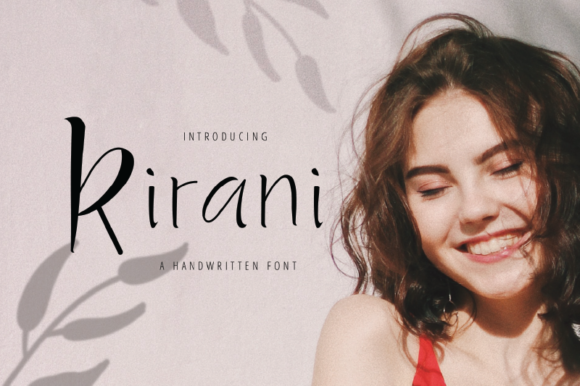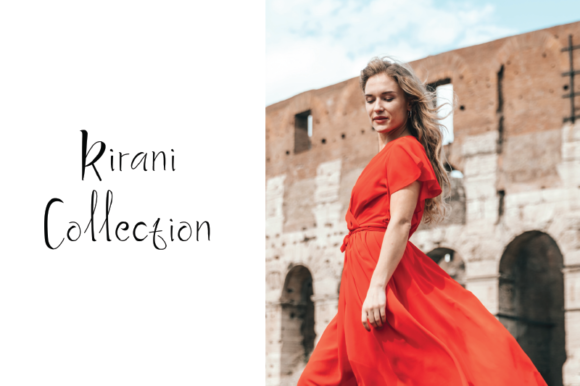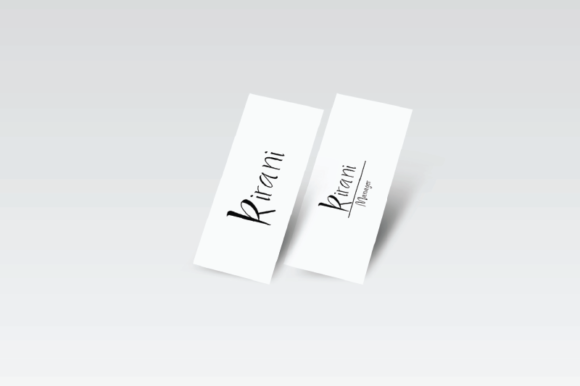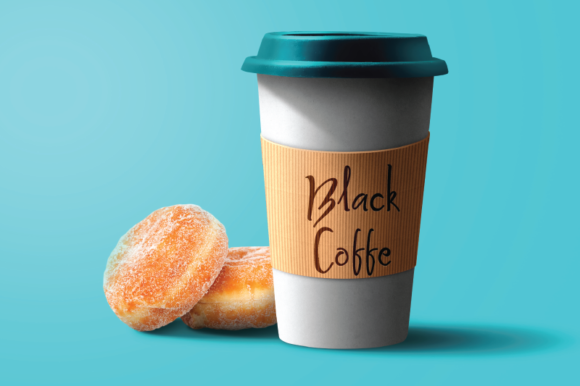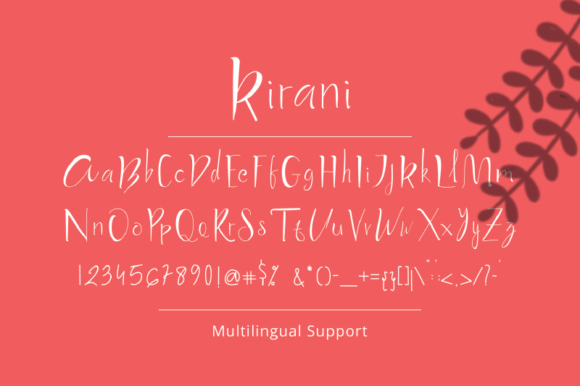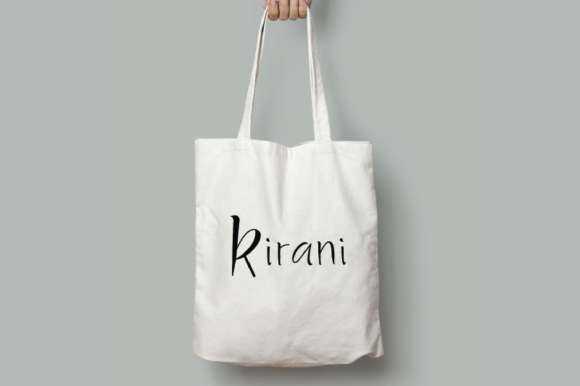
HomeScript FontsKirani Font Script Fonts Kirani Font FacebookXPinterestWhatsApp Kirani Font Poster 2 Kirani Font Poster 3 Kirani Font Poster 4 Kirani Font Poster 5 Kirani Font Poster 6 About Kirani Font Kirani is a cool and fun script with an authentic vibe. DOWNLOAD ON CREATIVE FABRICAThis font is sold and delivered by Creative Fabrica. Font Canyon may earn a commission if you buy through this link. People also explored Tangent Font Jasmine Font Qaboos Font Greenbeans Font Ribbon in the Sky Font Denistha Camelia Font Winstenson Font Fleurious Font Morning Coffee Mug Mockup 359 0 TagsKirani Font Previous articleSachie FontNext articleRadical Outcast Font LEAVE A REPLY Cancel reply Comment: Please enter your comment! Name:* Please enter your name here Email:* You have entered an incorrect email address! Please enter your email address here Website: Save my name, email, and website in this browser for the next time I comment. Personal Use Free Shelly Personal Use Free Read more about this font Ciggs Personal Use Free Read more about this font Konexio Personal Use Free Read more about this font Ancient Script Personal Use Free Read more about this font BLOG Best Fonts for YouTube Videos: Make Your Thumbnails Stand Out Best Fonts for YouTube Videos: Make Your Thumbnails Stand Out Choosing the right font can make a massive difference in how your YouTube videos perform.... Top 7 Google Fonts Alternatives for Faster and Privacy-Friendly Web Design (2025) 5 Fonts That Will Dominate Design Trends in 2026 Top 10 Handwritten Fonts That Elevate Your Designs